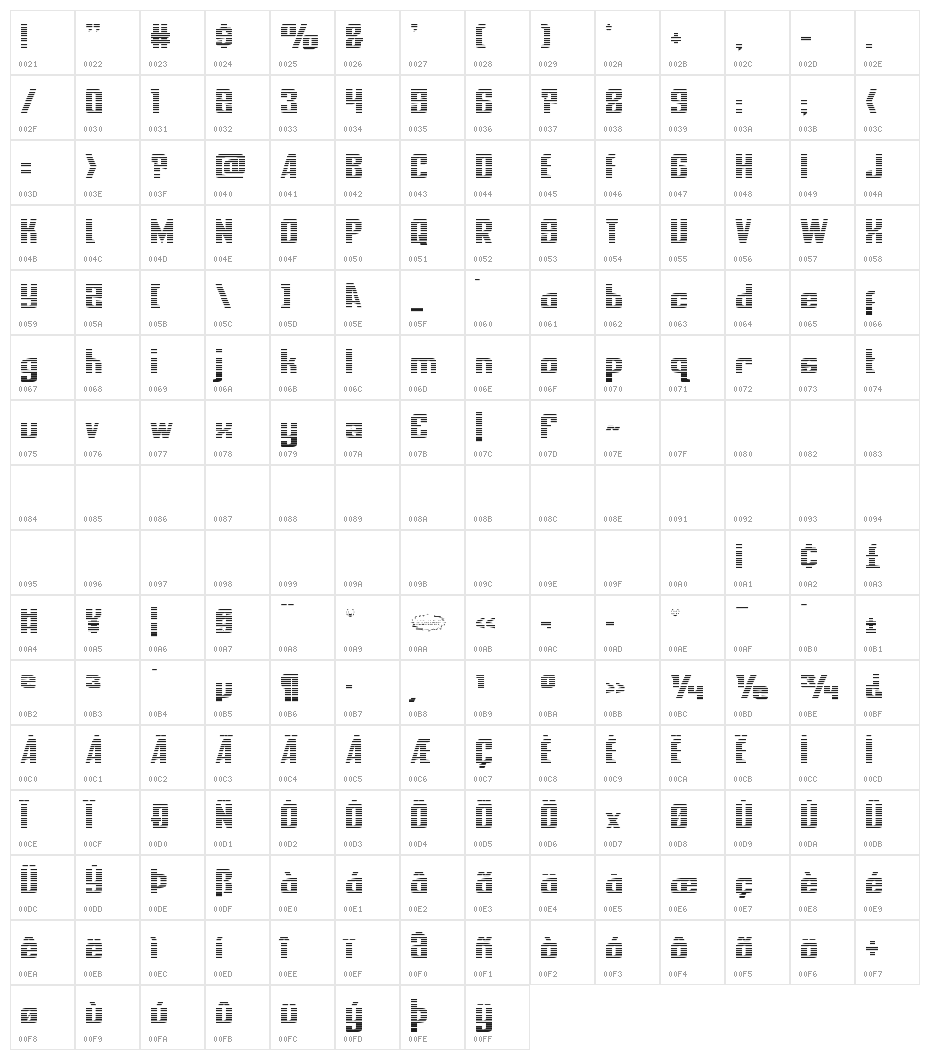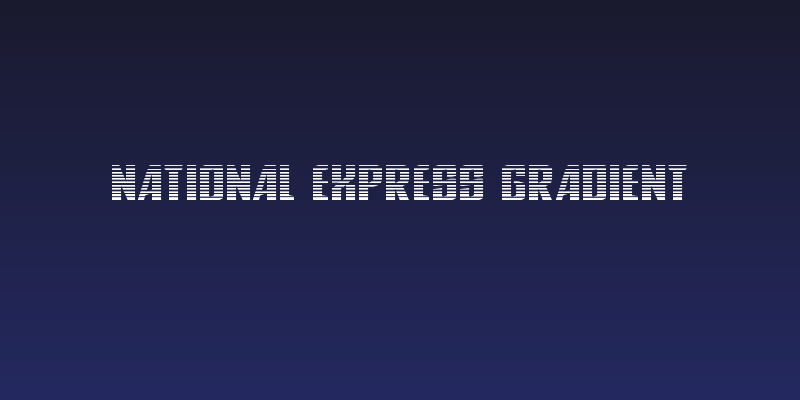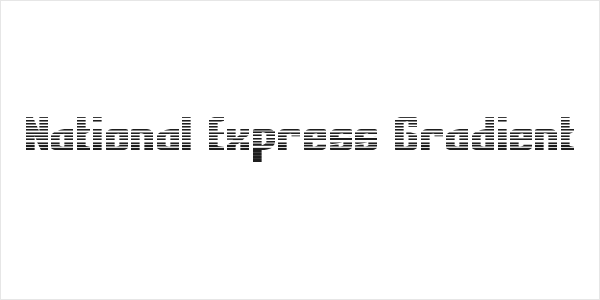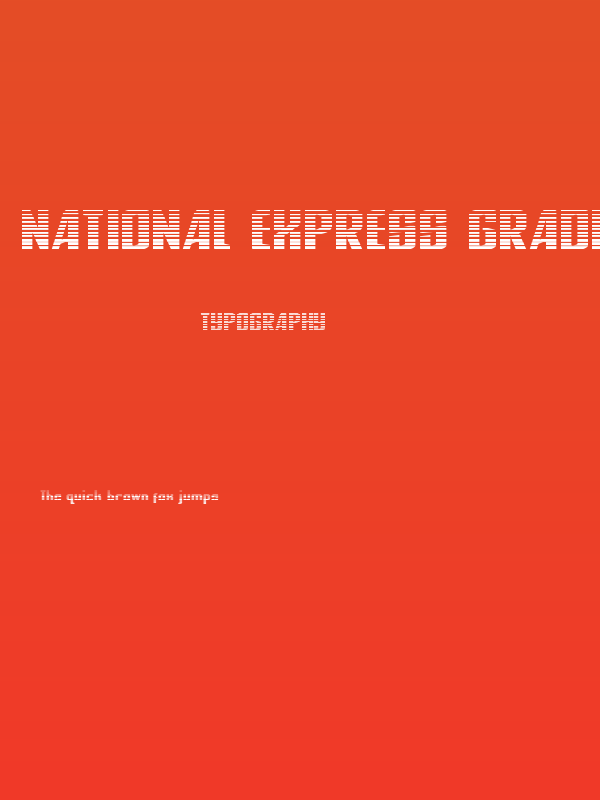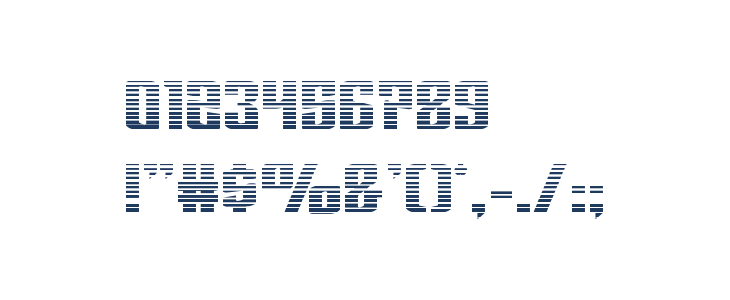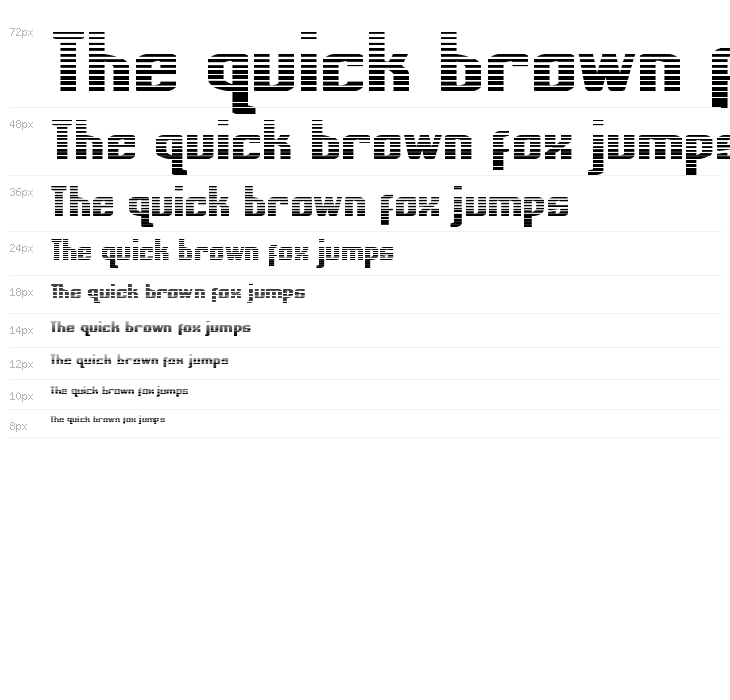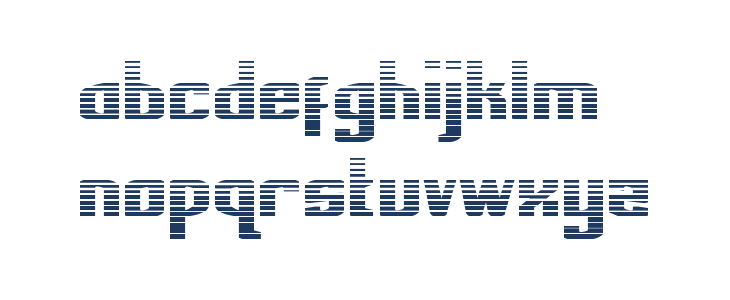
National Express Gradient Font
National Express Gradient Description
This font features a bold and striking design with a unique gradient effect created by horizontal lines running through each character. The uppercase and lowercase letters maintain a consistent width, giving it a monospaced appearance. The characters are geometric and angular, with sharp edges and a modern aesthetic. The numbers and special characters follow the same design principles, ensuring uniformity across all glyphs. This font is highly decorative and eye-catching, making it suitable for projects that require a strong visual impact.